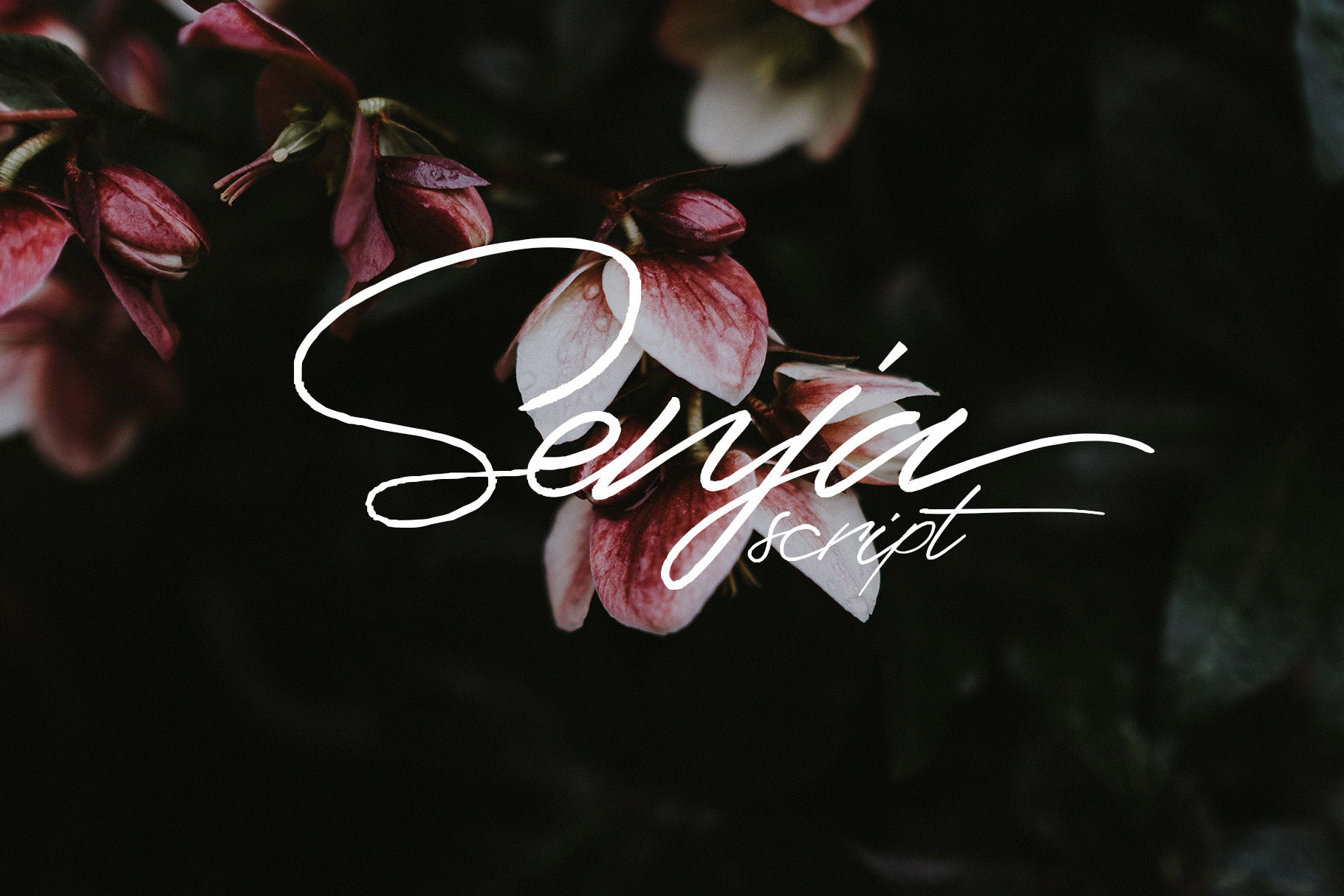
Senja script font
introduced a new script font: Senja script. beautiful script font, elegegant, and easy to use. suitable for designers who want to create logos, posters, print ads, apparel, cards, etc.
- Stylistic Set